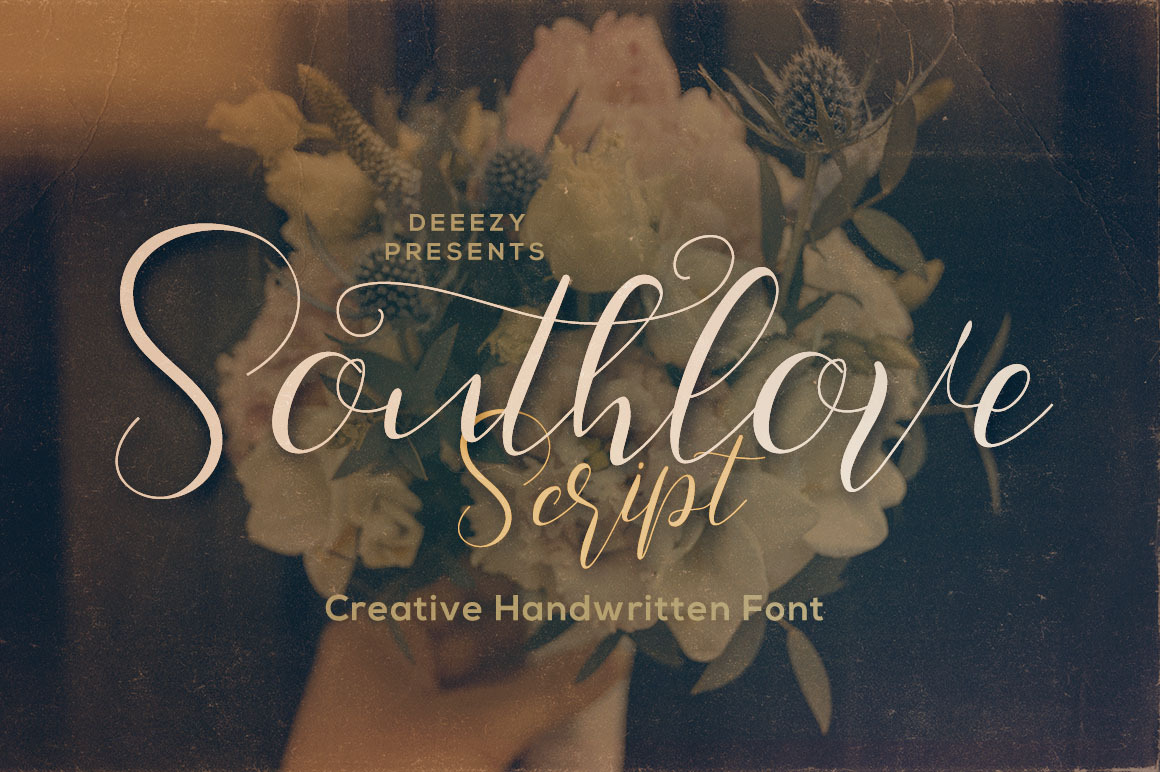
Dancing baseline and thin handwritten or calligraphy style script font for your new projects. With multi language support and lot of stylistic alternates & swashes.